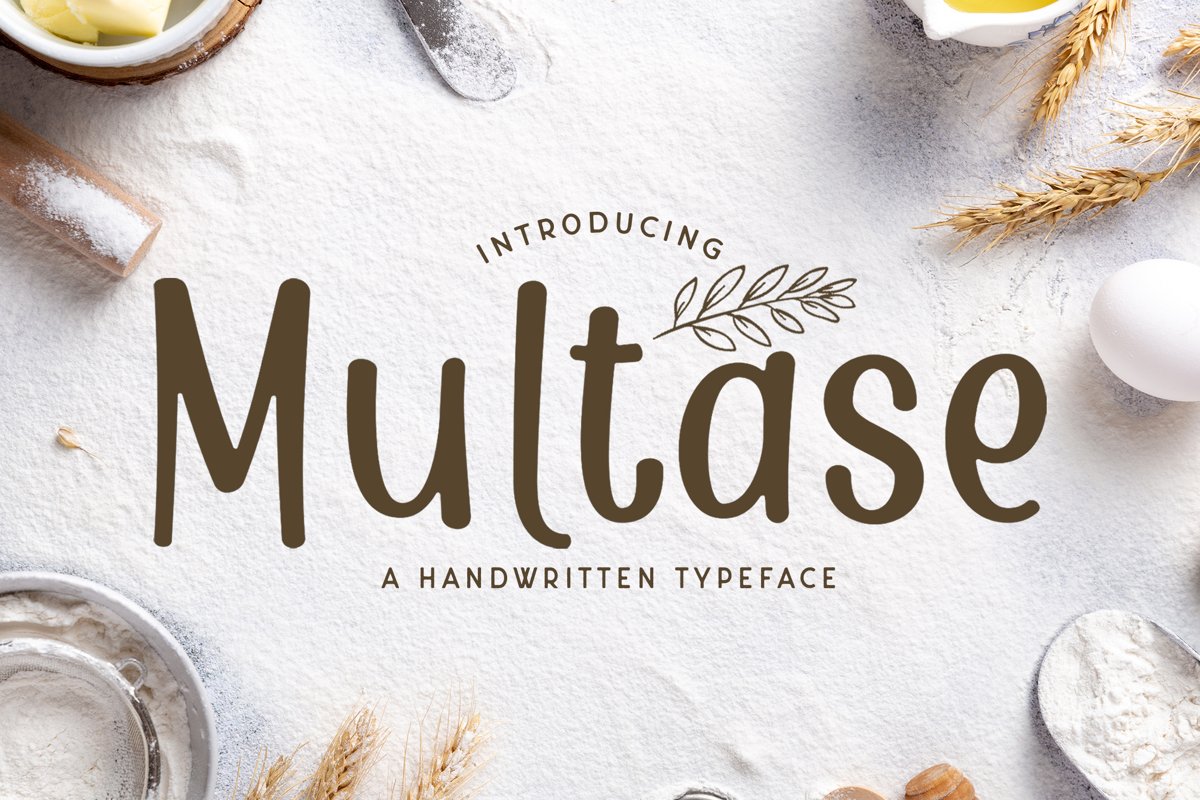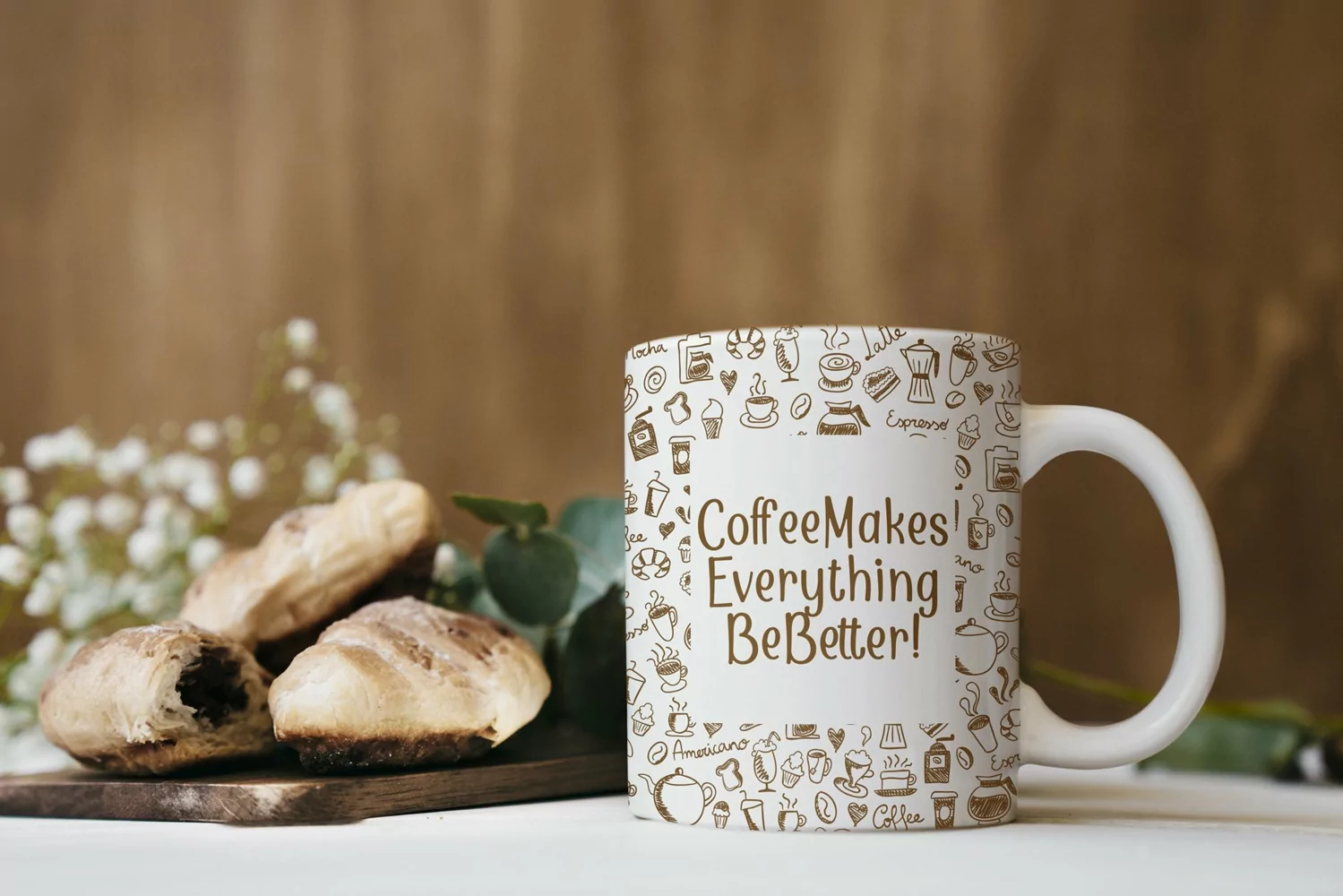
Multase is a display typeface. Perfect for display, poster, quotes, merchandise, business card, logo, logotype, branding, crafting needs, florist needs, price tag, print, t-shirt, mug, pin, and many more.